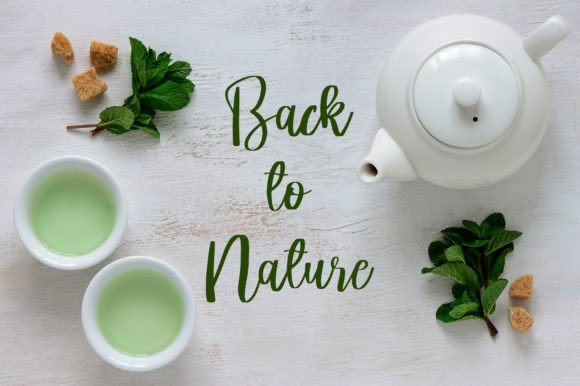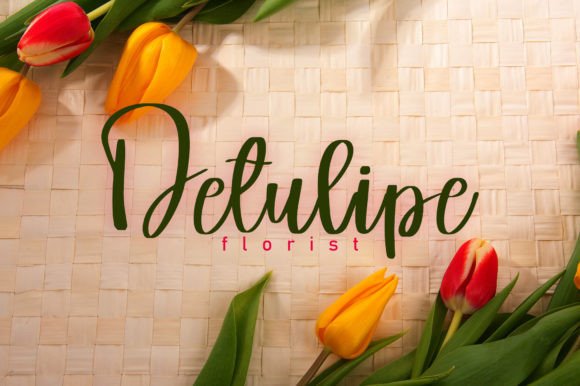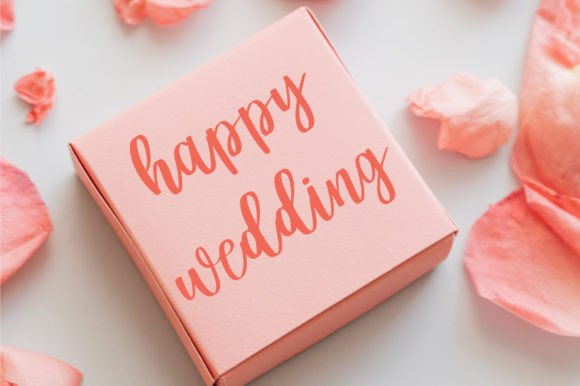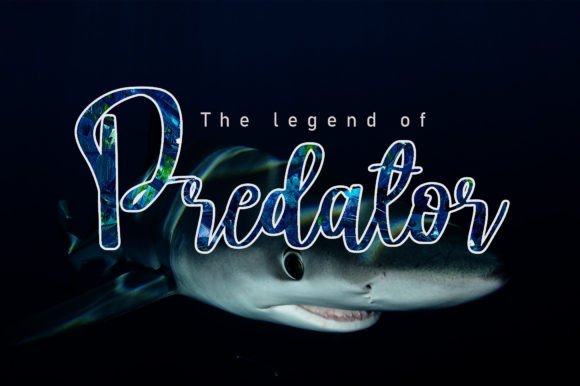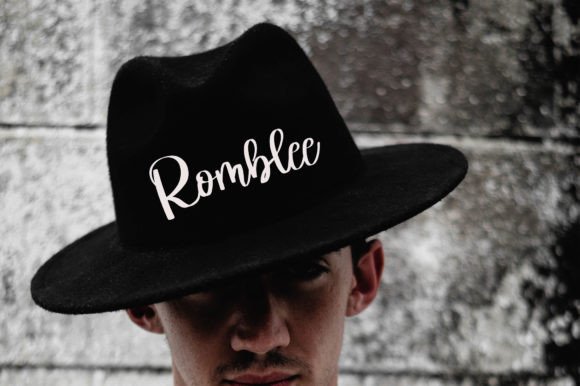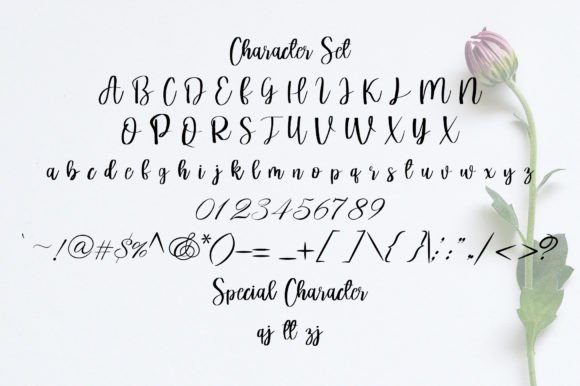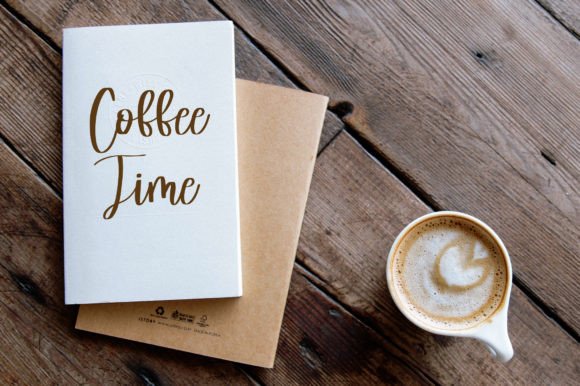
What Is Butterfly Font?
Butterfly is a beautifully crafted script font created with meticulous attention to every curve, stroke, and space between letters. Each character feels smooth and elegant, giving your text a polished, professional look. Because of its refined design, this font works perfectly for many creative and commercial projects.
You will see how effortlessly Butterfly elevates your ideas and adds a touch of sophistication to any design.
Butterfly is a versatile font that adapts beautifully to a wide range of uses. For example, it’s an excellent choice for wedding invitations. Its graceful script brings a romantic and timeless feel to your stationery.
Additionally, it works wonderfully for t-shirt designs. Whether you’re creating bold slogans or delicate quotes, Butterfly adds a handcrafted, personal touch that stands out.
You can also use it for logos and branding. From boutique shops to luxury products, this font helps build a memorable and stylish identity.
When you design social media graphics or marketing materials, Butterfly ensures your message feels elegant and cohesive.
Moreover, it’s perfect for product packaging, thank you cards, posters, and business cards. Even the simplest layouts feel more expressive with this script.
Why Should You Choose Butterfly Font?
There are many reasons to consider Butterfly for your next design. First, it’s easy to read, even with its flowing curves. Whether you use it in headlines or smaller text, every letter remains clear and balanced.
Also, Butterfly pairs beautifully with clean serif or sans-serif fonts. This helps you create professional layouts without extra effort.
Designers love that it looks polished right out of the box, saving time while delivering high-quality results.
Butterfly Font brings a sense of elegance and authenticity to every project. For example, when you want your designs to feel refined and heartfelt, this font makes it simple.
Even minimalist designs look richer with Butterfly’s handcrafted style. Whether you create wedding stationery, branding, or social media graphics, your work will stand out effortlessly.
Using a premium script font also shows your commitment to quality and detail. This helps you build trust with your audience and create a lasting impression.
Butterfly Font is more than just a typeface—it’s a creative asset that helps you communicate with clarity and grace. From invitations and t-shirts to logos and packaging, this font adapts seamlessly and brings sophistication to any design.